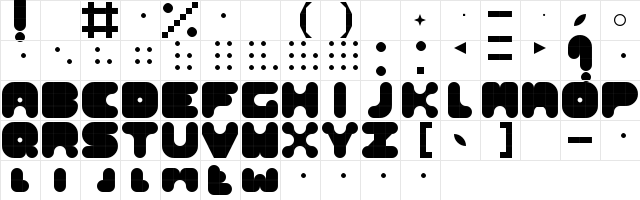
Blubberw Regular
Design Context for Blubberw Typeface
Blubberw is a composed and adaptable typeface that performs quietly and consistently across a wide range of design contexts.